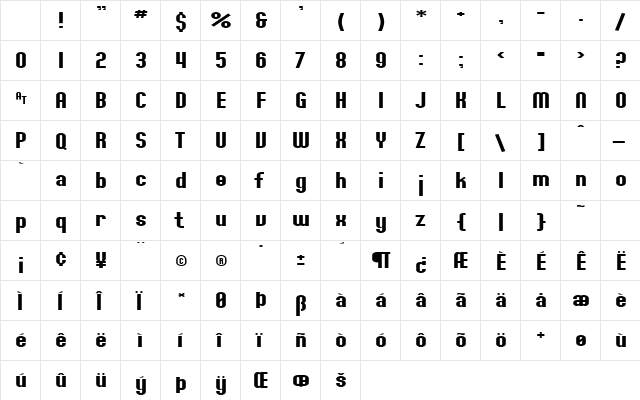
SF Willamette Extended Regular
SF Willamette Extended Family
Design Context for SF Willamette Extended
SF Willamette Extended is a composed and adaptable typeface that performs quietly and consistently across a wide range of design contexts.